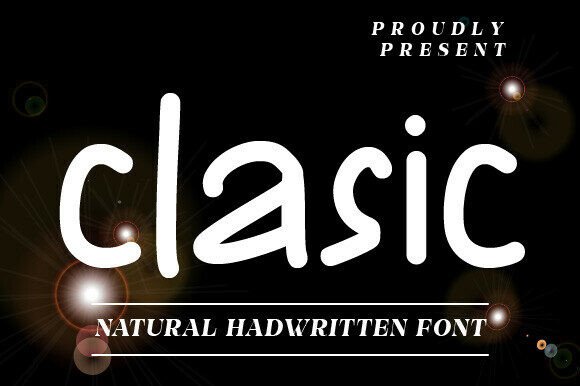
Introducing Clasic Font: The Epitome of Clean and Friendly Handwritten Typography
In the realm of typography, few fonts manage to strike a balance between simplicity, readability, and personality. Clasic Font is one such exceptional typeface that has garnered attention for its clean and straightforward natural handwritten aesthetic. Designed with the modern digital landscape in mind, Clasic embodies a friendly and approachable vibe, making it an ideal choice for a wide range of applications, from casual social media graphics to minimalist packaging.
The Design Philosophy Behind Clasic Font
At the heart of Clasic Font’s design is a commitment to simplicity and readability. The font features a monolinear stroke, which gives it a uniform and uncluttered appearance. This design choice not only enhances legibility but also imparts a sense of modernity and freshness. The rounded terminals add a touch of warmth and approachability, making the font feel more relatable and human.
One of the standout features of Clasic Font is its high-reaching lowercase characters. This design element contributes to the font’s friendly and open aesthetic, creating a sense of airiness and spaciousness. The overall effect is a typeface that feels both contemporary and inviting, perfect for designers and crafters looking to infuse their projects with a personal touch.
Capturing the Essence of Everyday Handwriting
Clasic Font succeeds in capturing the effortless look of everyday handwriting, making it an excellent choice for projects that require a personal and relatable tone. Unlike traditional script fonts, which can often appear overly ornate or complicated, Clasic strikes a perfect balance between informality and sophistication. This versatility allows it to be used across a variety of mediums, from digital platforms to print materials.
The font’s design carefully avoids the complexity of traditional script flourishes, opting instead for a clean and straightforward appearance. This makes Clasic highly legible, even at smaller sizes, and ensures that it remains visually appealing in a wide range of contexts.
Applications of Clasic Font
Given its friendly and approachable nature, Clasic Font is well-suited for a variety of applications. Here are some of the ideal uses for this versatile typeface:
- Casual Social Media Graphics: Clasic Font’s modern and relatable aesthetic makes it perfect for social media graphics, where grabbing the viewer’s attention with a friendly and approachable tone is crucial.
- Personal Blogs: For bloggers looking for a font that reflects a personal and conversational tone, Clasic is an excellent choice. It adds a human touch to blog posts without overwhelming readers with overly complex typography.
- Minimalist Packaging: In packaging design, typography plays a critical role in communicating brand personality. Clasic Font’s clean and straightforward design makes it suitable for minimalist packaging, where simplicity and clarity are key.
- Projects Requiring a Human Touch: Any project that aims to connect with its audience on a personal level can benefit from Clasic Font. Its friendly and approachable nature makes it ideal for designs that require a relatable, “human” touch.
Clasic Font stands out in the world of typography for its unique blend of simplicity, readability, and personality. Its clean and straightforward natural handwritten aesthetic, coupled with a friendly and modern look, makes it a versatile choice for a wide range of design projects. Whether you’re a designer looking for a font that adds a personal touch to your work or a crafter seeking a typeface that resonates with your audience, Clasic Font is an excellent option to consider.
By incorporating Clasic Font into your projects, you can achieve a balance between modernity and approachability, making your designs more relatable and engaging. As the digital landscape continues to evolve, the demand for typography that is both clean and characterful will only grow. Clasic Font is well-positioned to meet this demand, offering a timeless solution for designers and crafters seeking to create impactful and memorable designs.